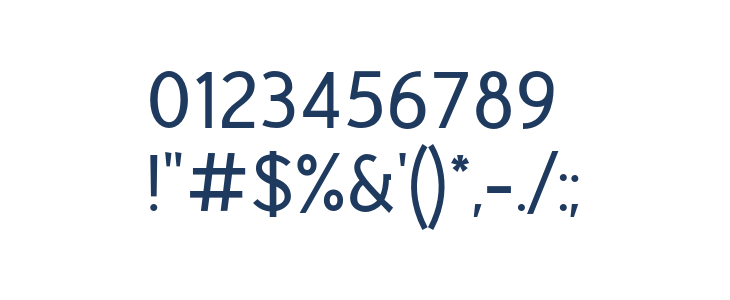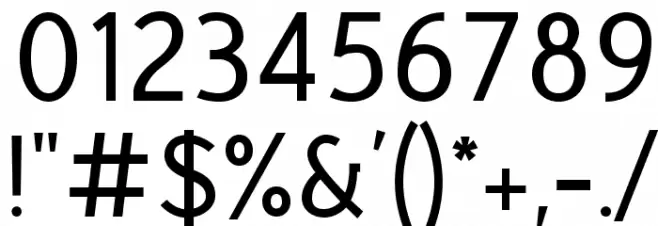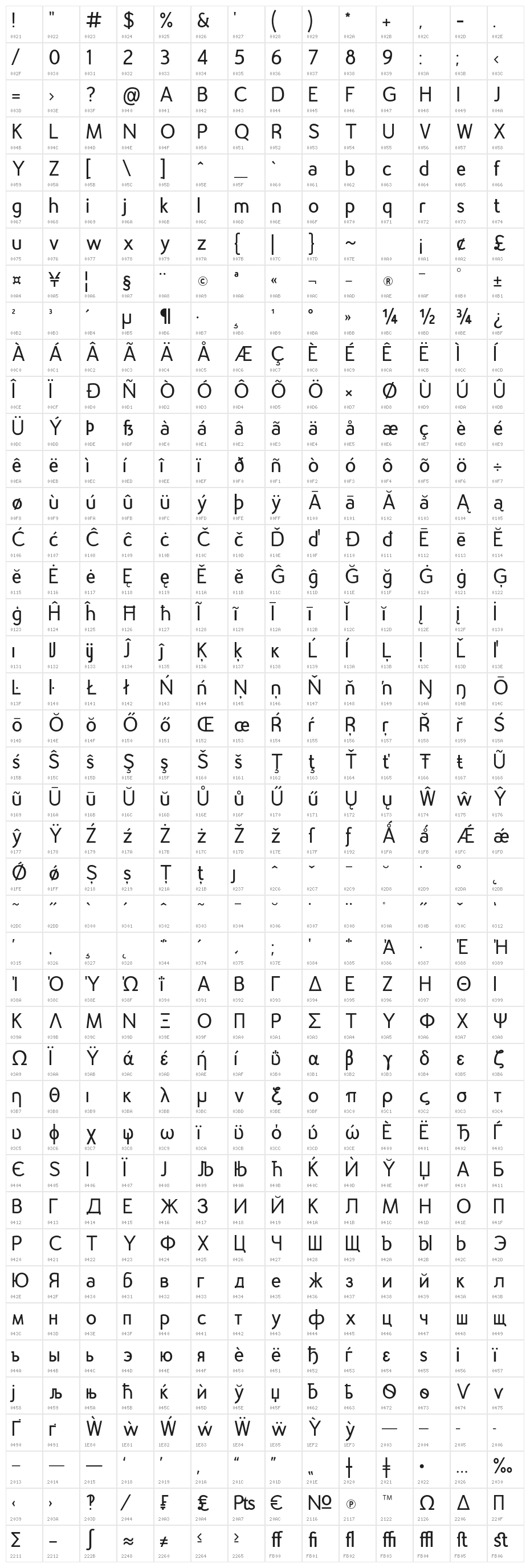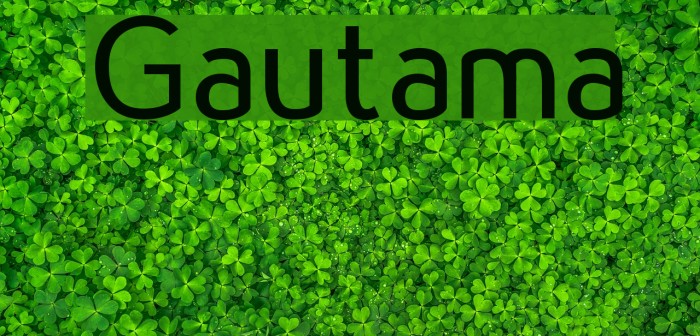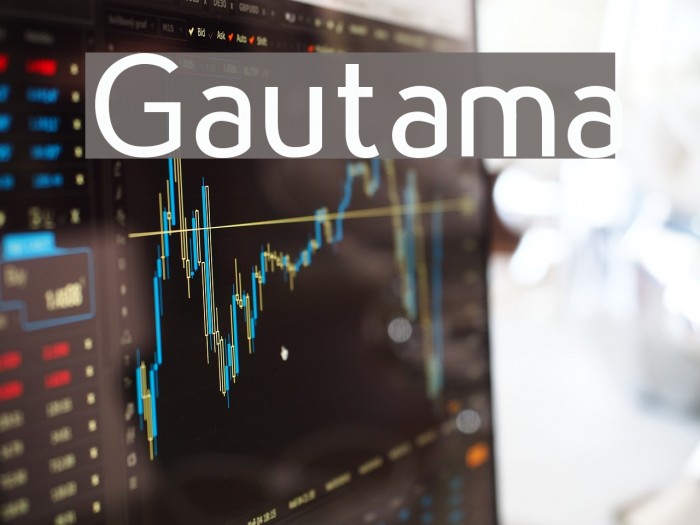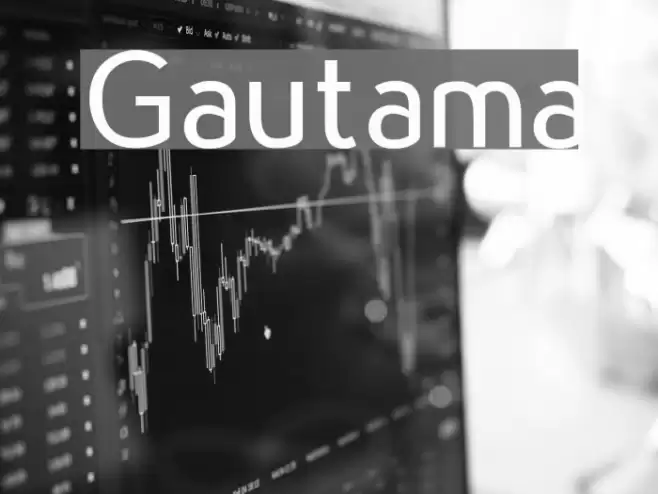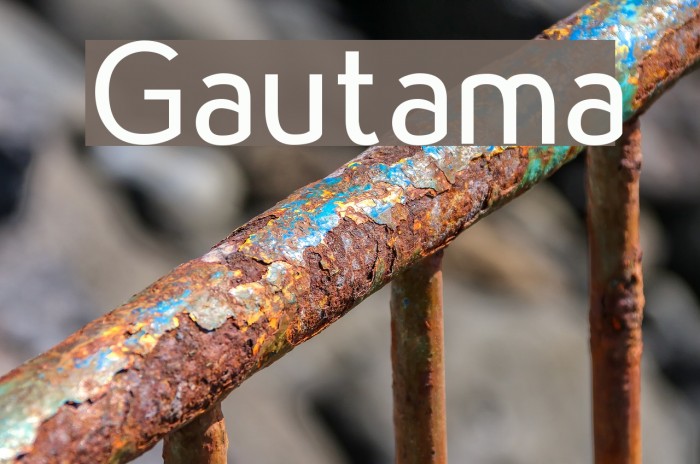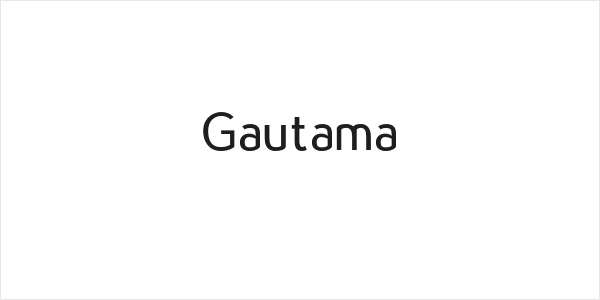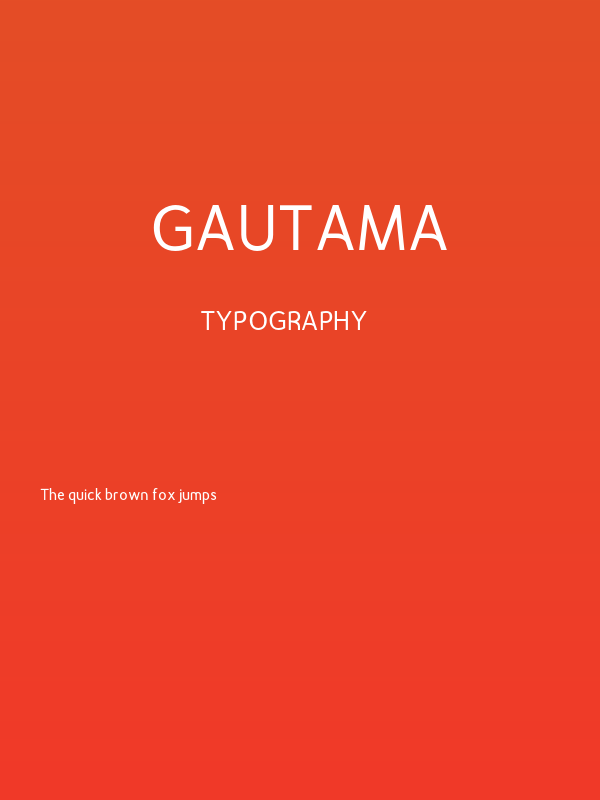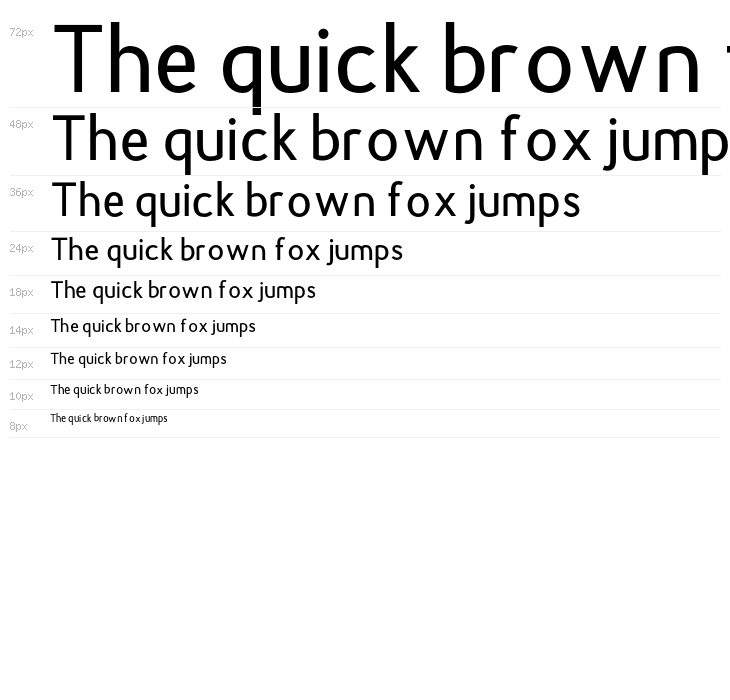
Gautama Font
Gautama Description
This font features a clean and modern sans-serif design, characterized by its simplicity and readability. The letters are evenly spaced with a consistent stroke width, providing a balanced and harmonious appearance. The uppercase and lowercase letters maintain a uniform height, enhancing legibility. The numerals are clear and distinct, making them suitable for various applications. The special characters are well-integrated, maintaining the overall aesthetic of the font. Its straightforward design makes it versatile for both digital and print media.